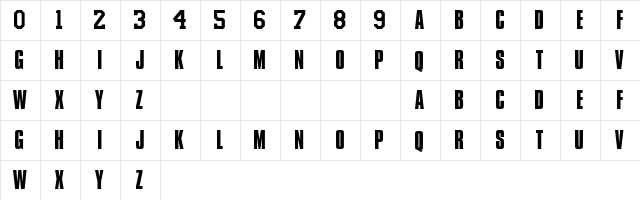
NBA Lakers Regular
Design Context for NBA Lakers Typeface
NBA Lakers offers clean, dependable letterforms without strong stylistic allegiance, making it a practical choice for designers who need flexibility.